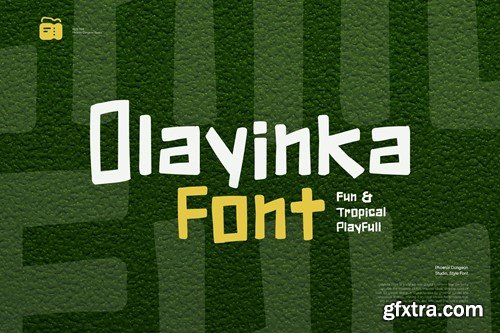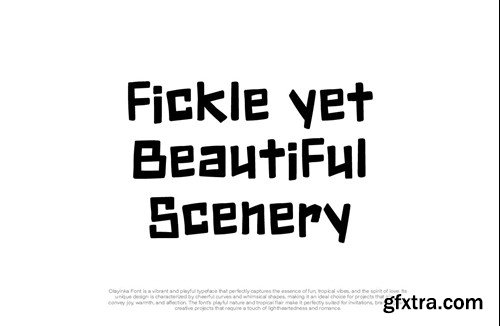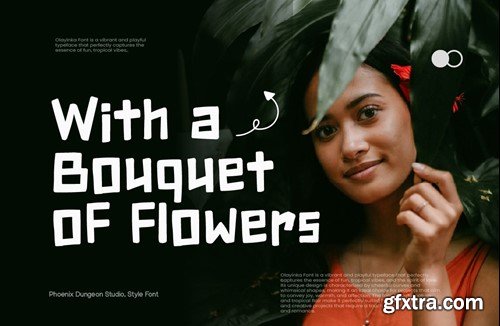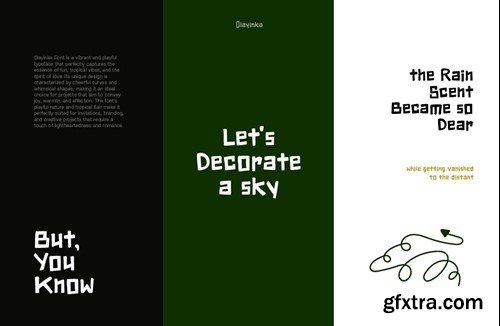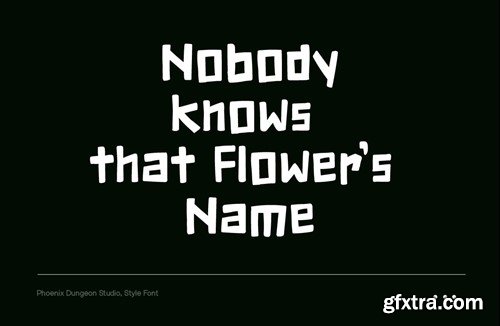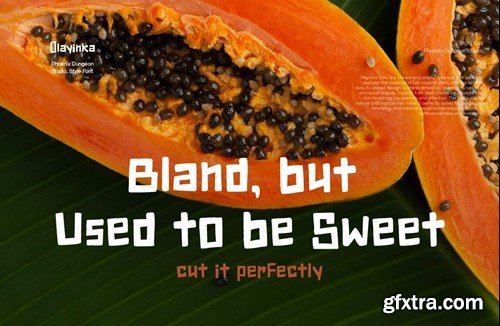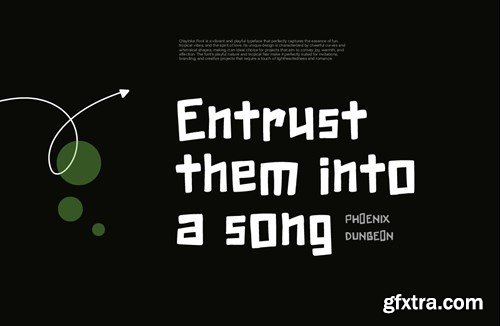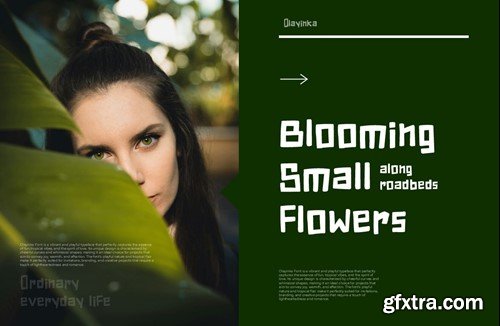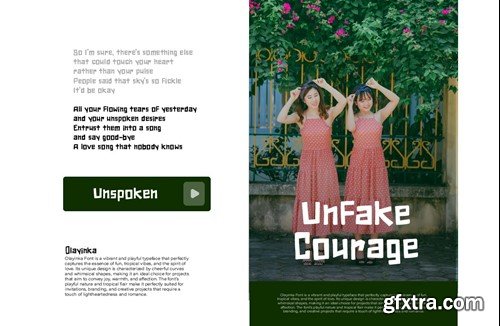
Olayinka Font
Olayinka Font is a vibrant and playful typeface that perfectly captures the essence of fun, tropical vibes, and the spirit of love. Its unique design is characterized by cheerful curves and whimsical shapes, making it an ideal choice for projects that aim to convey joy, warmth, and affection. The font’s playful nature and tropical flair make it perfectly suited for invitations, branding, and creative projects that require a touch of lightheartedness and romance. What’s in the package : Thank you